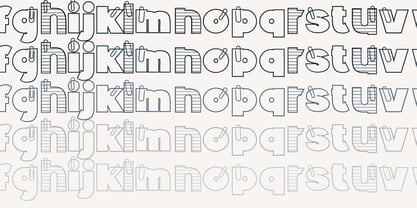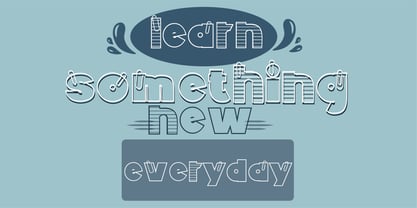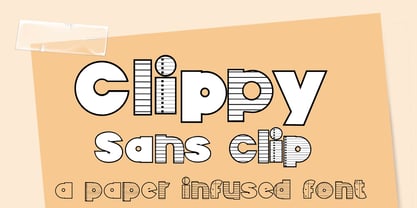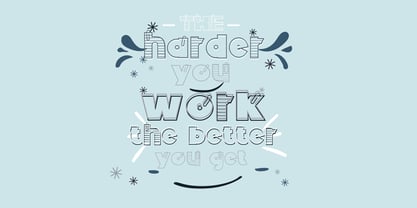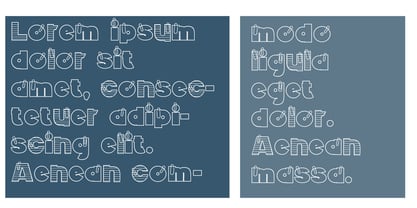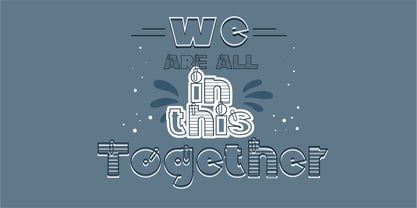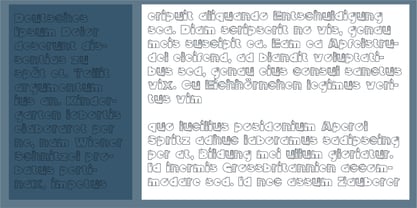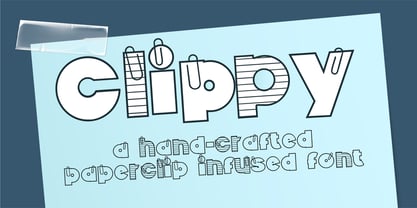
ZP Clippys
by Illustration Ink
The ZP Clippys Font Family was designed by Illustration Ink and published by Illustration Ink. ZP Clippys contains 5 styles and family package options. More about this family
This hand-crafted font of chunky sans serif letters are filled will lines and dots that replicate paper prints and paperclips on many of the letters. The sans clips version has no paperclips at all. A hand-crafted font is a font that is designed to look like it was written by hand. It is often used for invitations, greeting cards, and other items. Handwritten fonts can be either formal or informal, and they can be used for a variety of purposes.
Some of the characteristics of handwritten fonts include:
• The letters are not perfectly uniform in size or shape.
• There may be slight variations in the spacing between letters and words.
• The font may have a "wiggly" or "squiggly" appearance.
• The font may be difficult to read at small sizes.
Handwritten fonts can be a great way to add a casual touch to your designs. They can also be used to create a sense of nostalgia or whimsy. However, it is important to choose a handwritten font that is appropriate for the project you are working on. A formal handwritten font may not be appropriate for a casual invitation, while an informal handwritten font may not be appropriate for a corporate document.